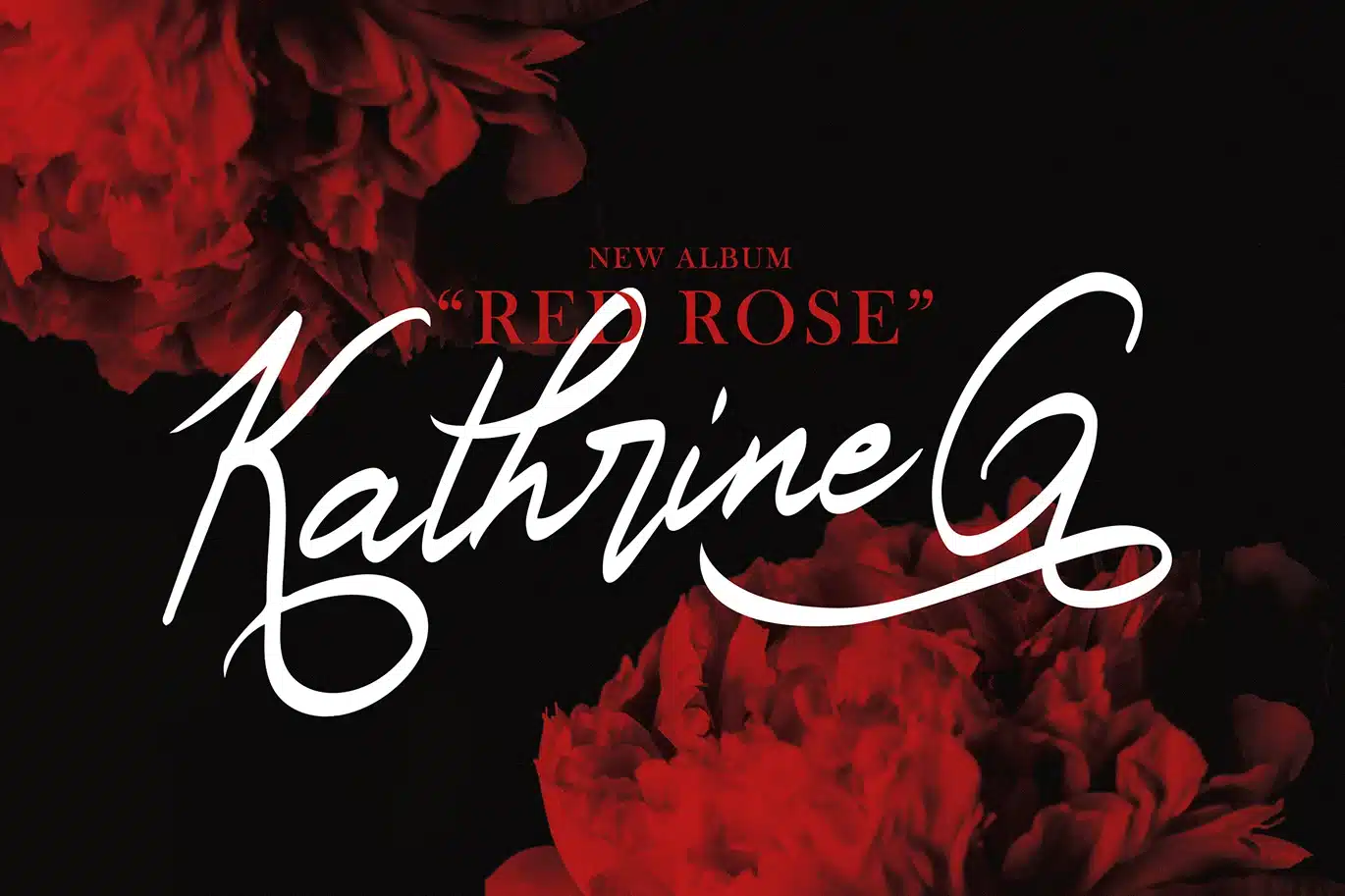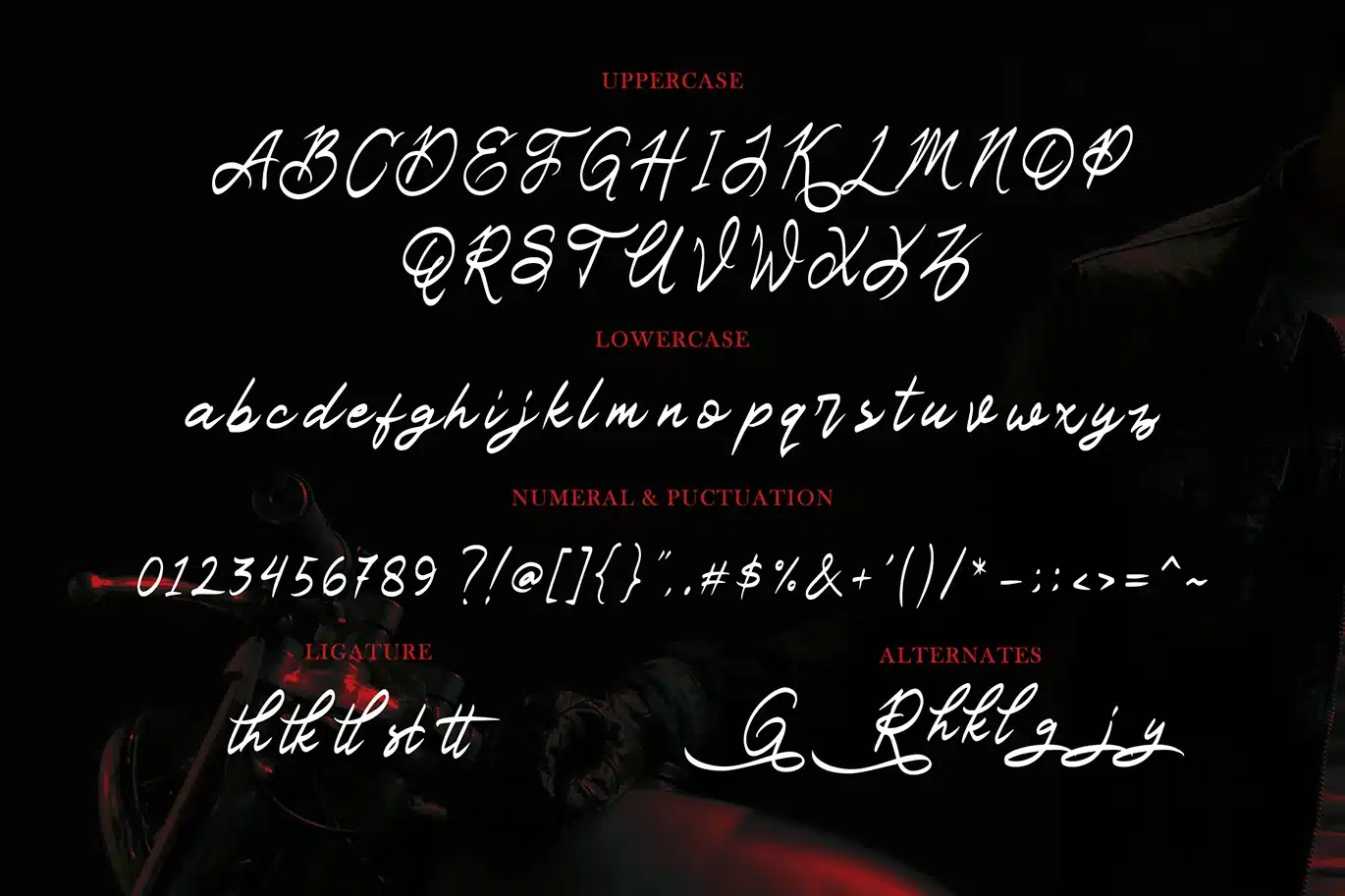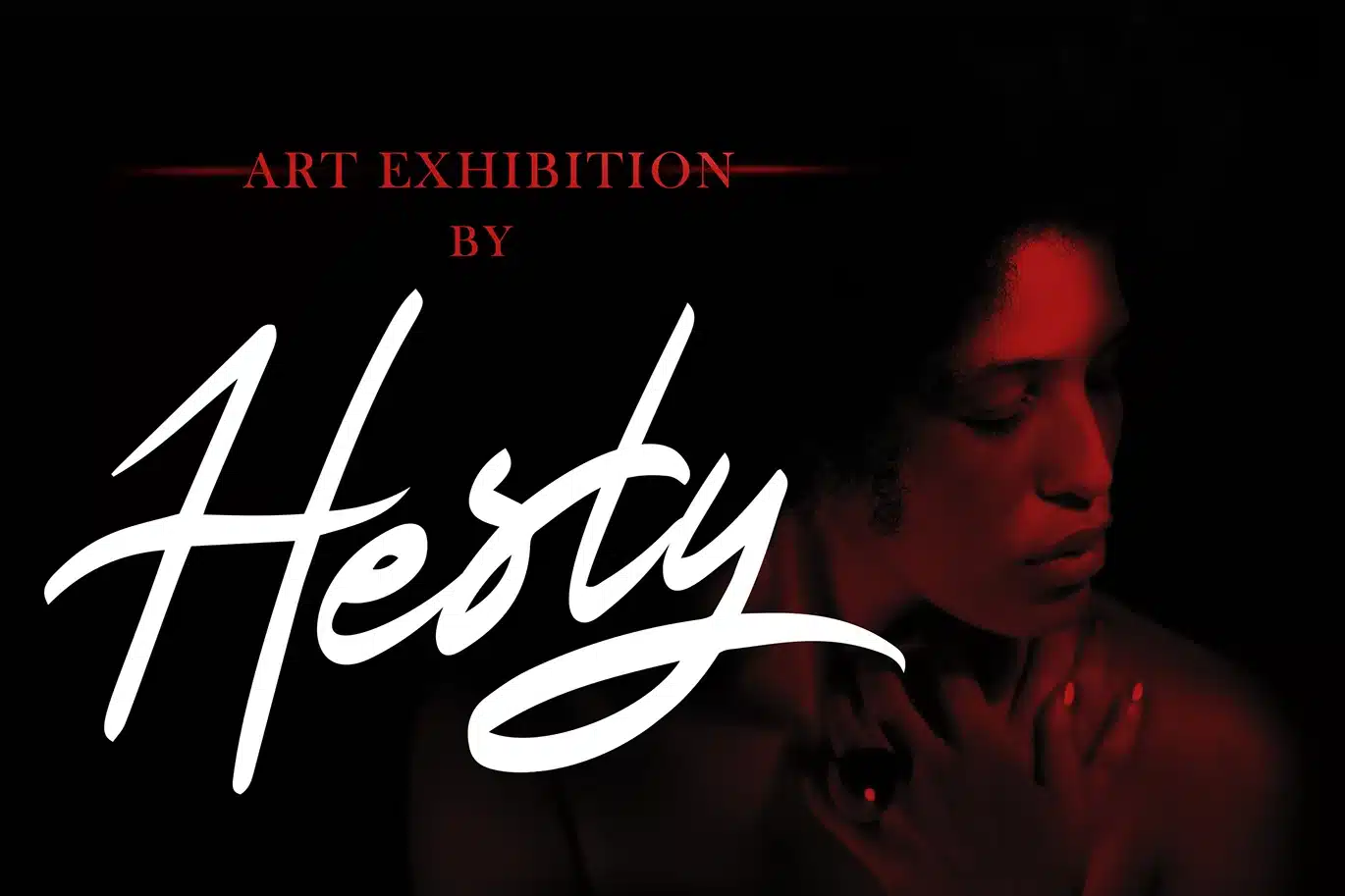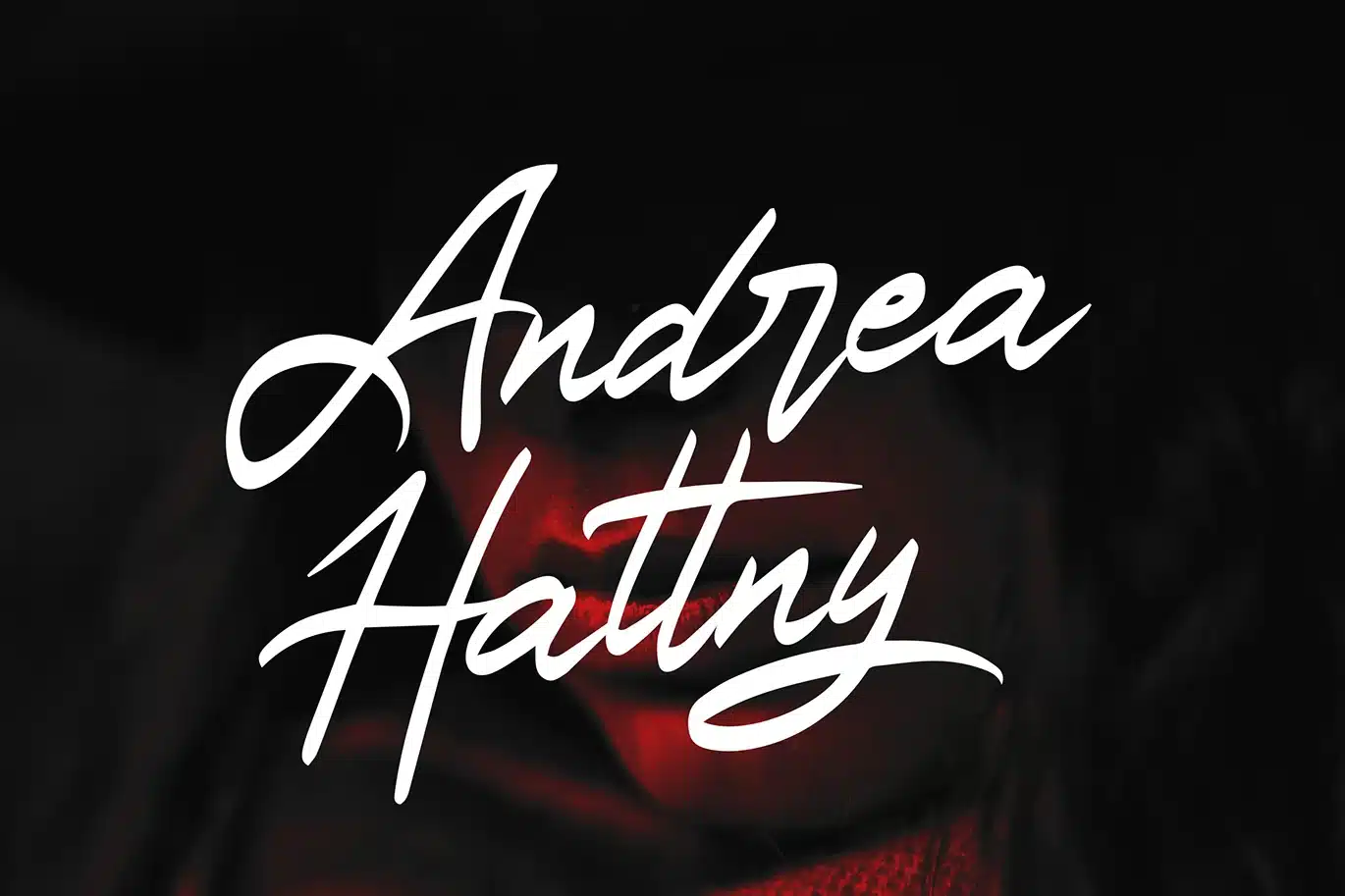
Bad Ride – Handlettering Script Font
Bad Ride - Handlettering Script
So beautiful on invitation like greeting cards, branding materials, business cards, quotes, posters, and more!